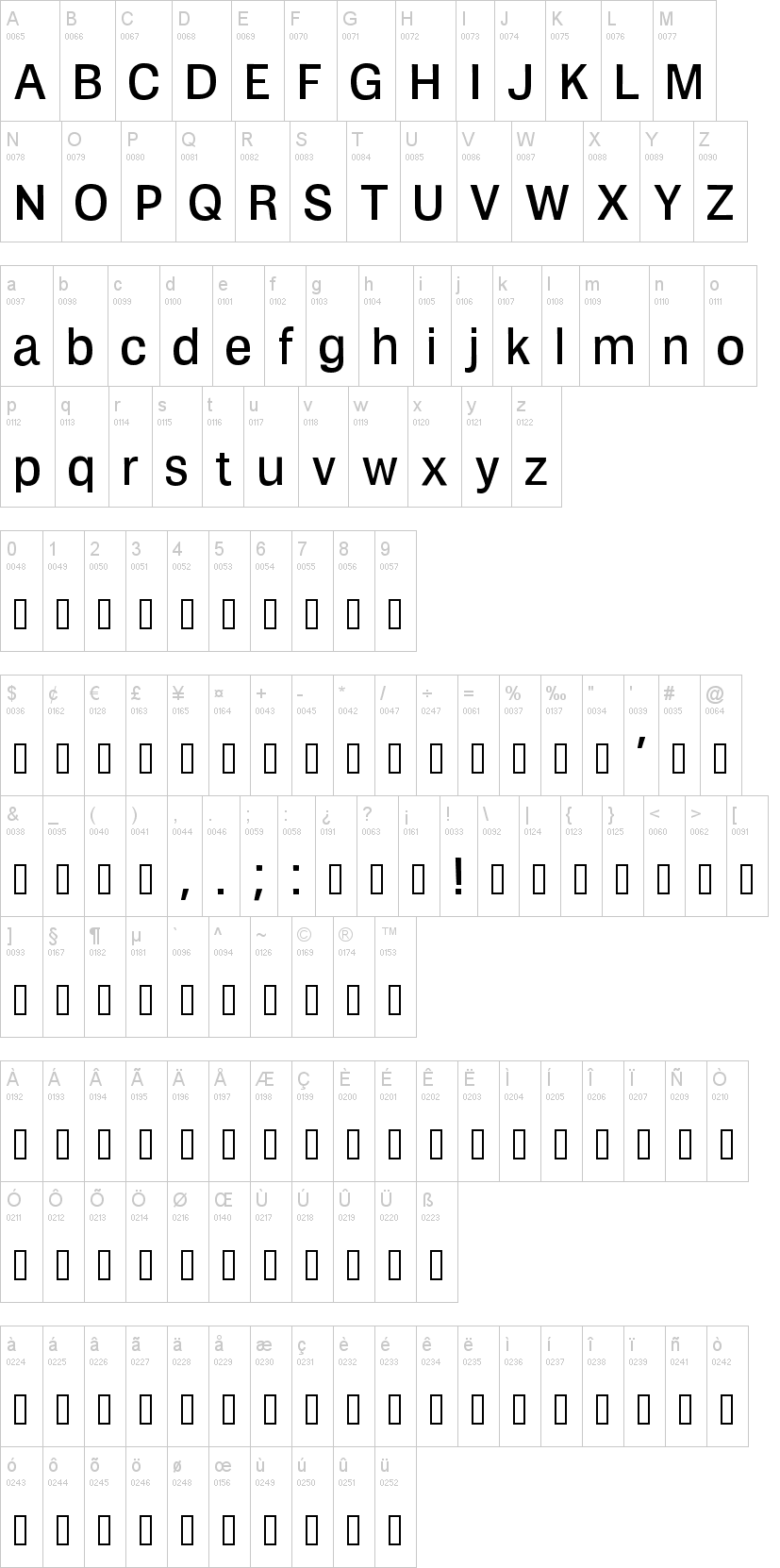
Шрифт Zikketica
An experiment: to create Helvetica without looking at it. Some features purposely vary from Helvetica. The proportions are quite different, which would really make this better suited to being a text font than Helvetica.